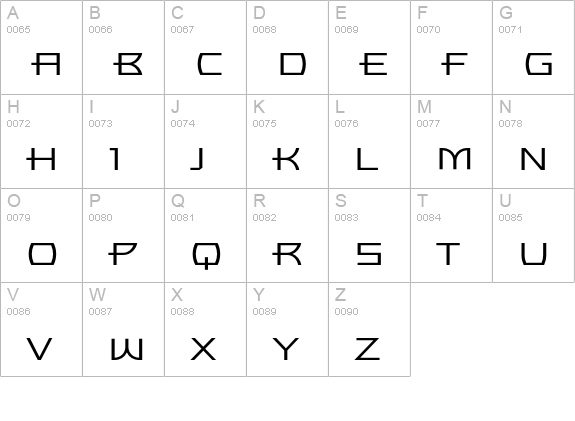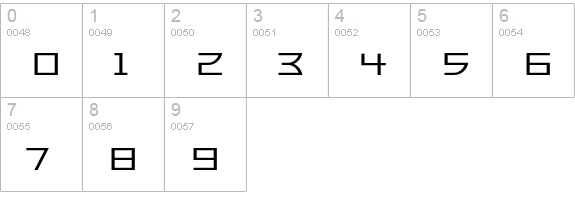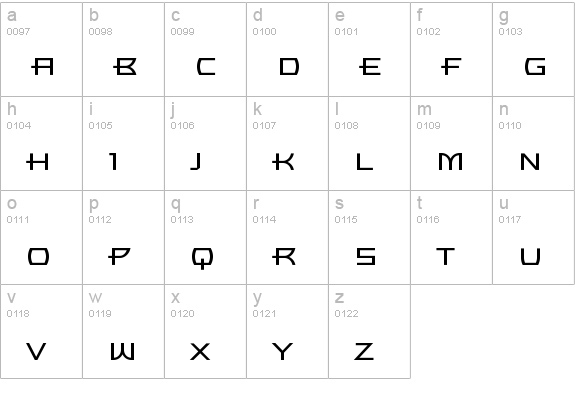
Introducing UltraBronzo-Lite, a stunning display font that will make your designs shine with its exquisite charm! This font is the perfect choice for those seeking a touch of elegance and sophistication in their projects. With its sleek and elongated letterforms, UltraBronzo-Lite effortlessly captures attention and adds a luxurious feel to any design. What makes UltraBronzo-Lite even more remarkable is that it is available for free! Yes, you read that right - this remarkable font can be downloaded without spending a dime. Thanks to its generous creators, UltraBronzo-Lite is freely available to download at FontsMarket.com, allowing designers and enthusiasts alike to access its beauty and versatility. Whether you're designing a logo, creating eye-catching headlines, or adding a touch of class to your invitations, UltraBronzo-Lite will exceed your expectations. Its clean lines and balanced proportions ensure legibility, while its subtle curves and delicate details add a touch of uniqueness to each character. Furthermore, UltraBronzo-Lite is compatible with a wide range of design software, making it a versatile tool for any project. Its extensive character set includes uppercase and lowercase letters, numerals, punctuation marks, and special characters, enabling you to express your creativity without limitations. So why wait? Make your designs stand out from the crowd with the captivating beauty of UltraBronzo-Lite. Download it for free at FontsMarket.com and witness the transformative power of this remarkable font. Elevate your design projects to new heights and impress your audience with the timeless elegance and sophistication of UltraBronzo-Lite.